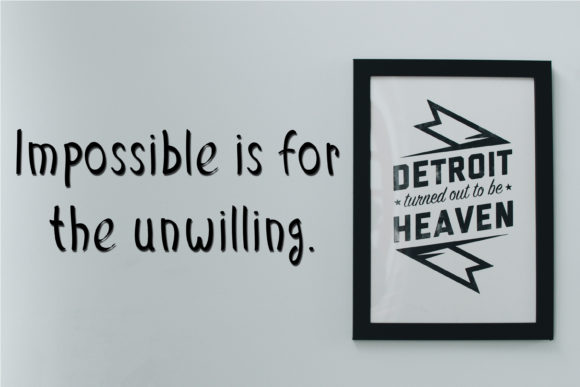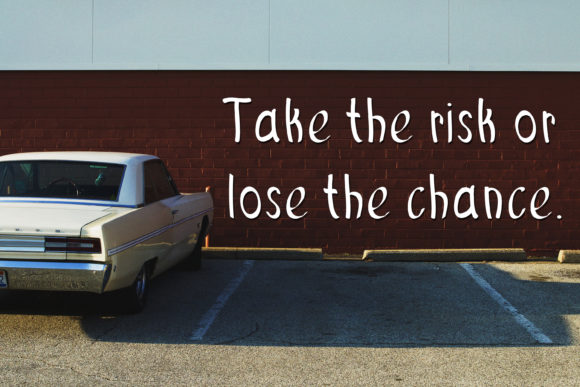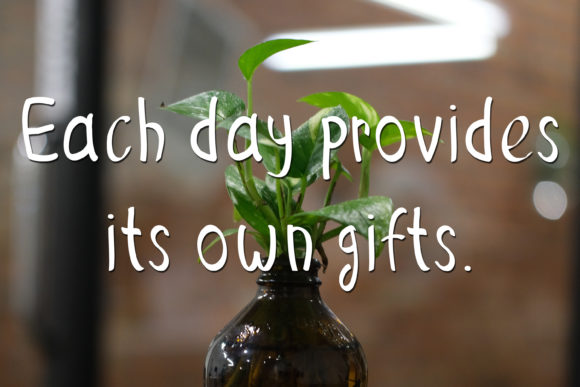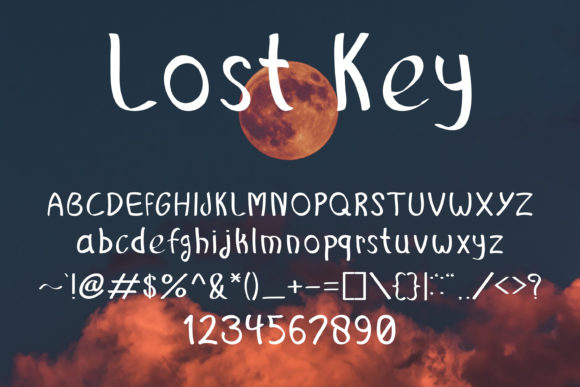
Lost Key Font
About Lost Key Font
Lost Key is an adaptable and friendly handwritten font. Its natural and unique style makes it incredibly fitting to a large pool of designs. The only limit is your imagination!